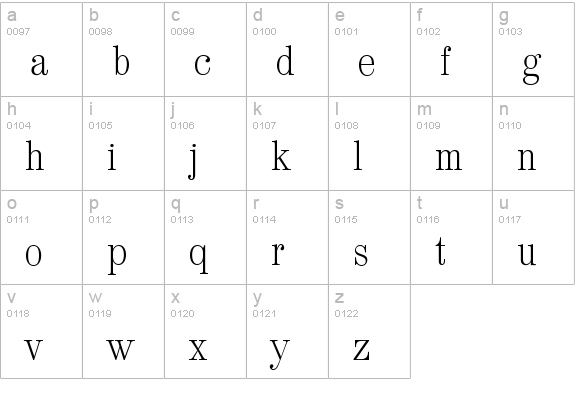
Valencia-Xlight is a stunningly elegant and delicately designed font that exudes a sense of sophistication and grace. Its slender and graceful letterforms are meticulously crafted, creating a harmonious balance between elegance and legibility. This font possesses a unique blend of modernity and timelessness, making it suitable for a wide range of design projects. Whether it is used for branding, advertising, editorial design, or any other creative endeavor, Valencia-Xlight adds a touch of refined beauty to any composition. The exquisite thin strokes of Valencia-Xlight give it a remarkable lightness, while the subtle curves and tapered terminals add a touch of romance and femininity. This font is perfect for capturing a sense of ethereal beauty or conveying a delicate message. One of the best things about Valencia-Xlight is that it is freely available for download at FontsMarket.com. This means that designers and creatives can access this remarkable font without any cost, making it a valuable addition to their font library. With its unique combination of elegance and versatility, Valencia-Xlight is a font that is sure to inspire and enhance any design project.